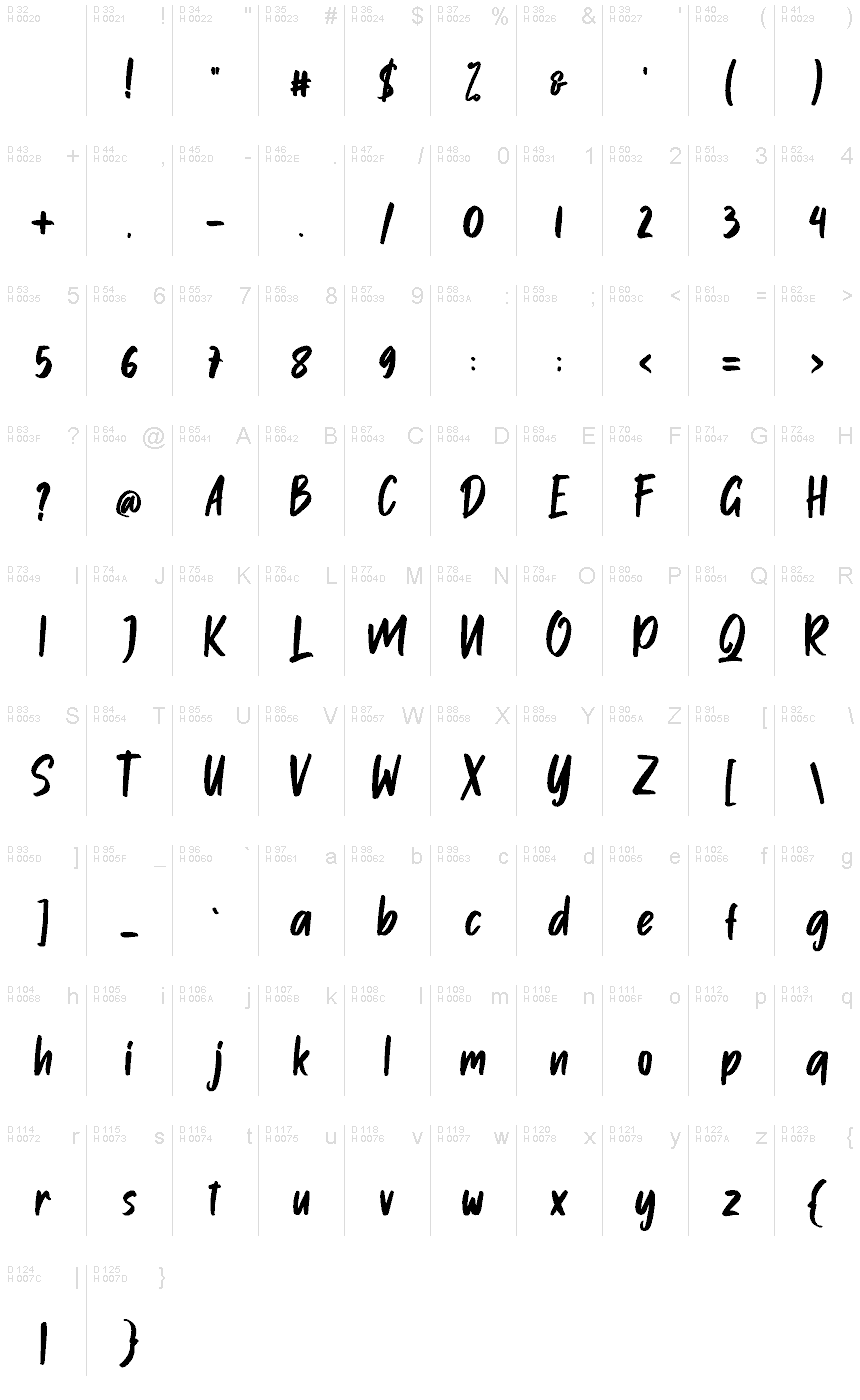
Onether
Onether font by Skiiller Studio is a free handwritten font of a charming nature. Its casual elegance and compressed structure are meant to add an artistic flair to your designs. The core personality of this expressive font is modern and highly adaptable, which has the potential to make it the go-to typeface for your next task.
Onether can be used in creating logos, invites, flyers, advertisements, emblems, brochures, quotes, apparel designs, websites/blogs titles/headlines and magazine covers. Posters are also another good use case since they beautifully combine image elements with typography ones.